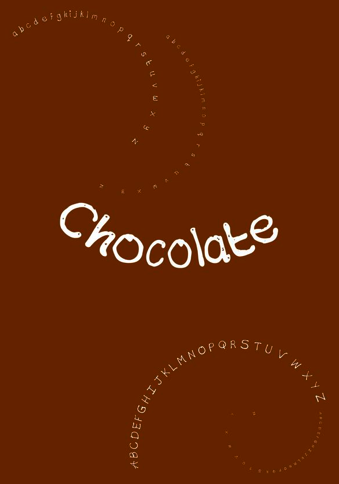
Font name: | Chocolate Type |
Author: | Tahir Jamil |
Note by Tahir Jamil | |
This is a chocolate typeface I created for a branding project I did for a milkshake bar. This was created by hand using chocolate to get that real chocolate feel and is now a working typeface! |